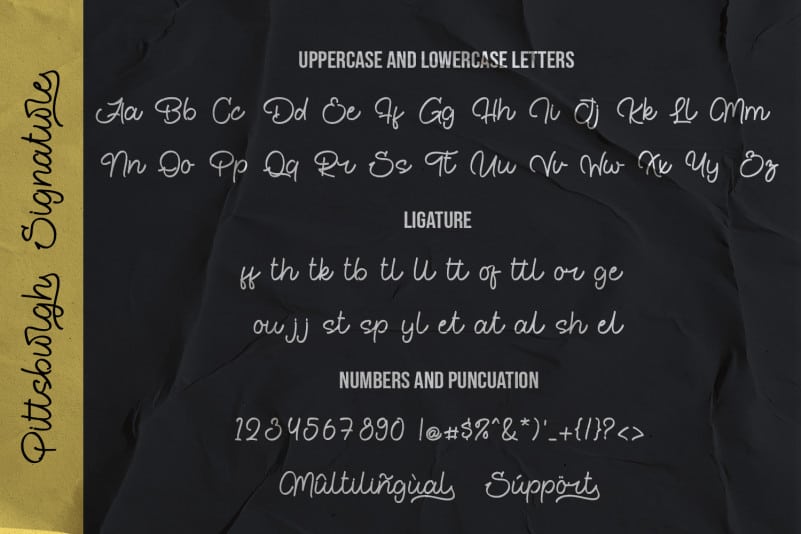
Pittsburght Signature Font
Introducing Pittsburght Signature Font. A casual handwritten font looks so natural dan brushy. This font will looks awesome and amazing in many way to your latest project. Pittsburght Signature Font presents the Pittsburgh Signature, a vintage script font inspired by modern vintage and retro styles. All the characters have a unique shape that gives a natural design appearance. This font is perfect for creating traditional style logos, labels, package designs, text for t-shirts and more.